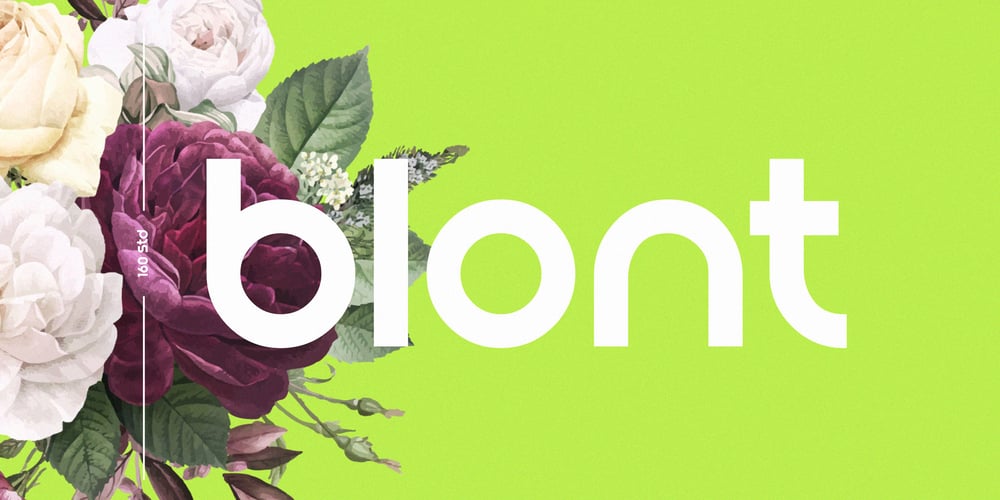
Blont Font Family was designed by Supar Wanto and published by 160 Std. Blont contains 1 styles and family package options. Blont is a simple, minimal and techno looking sans serif font. Add it confidently to your favorite creations and let yourself be amazed by the outcome generated. Perfect for logos. and also suaitable for headlines, titles and posters. comes with alternates to make unique, you can choose the best for you.